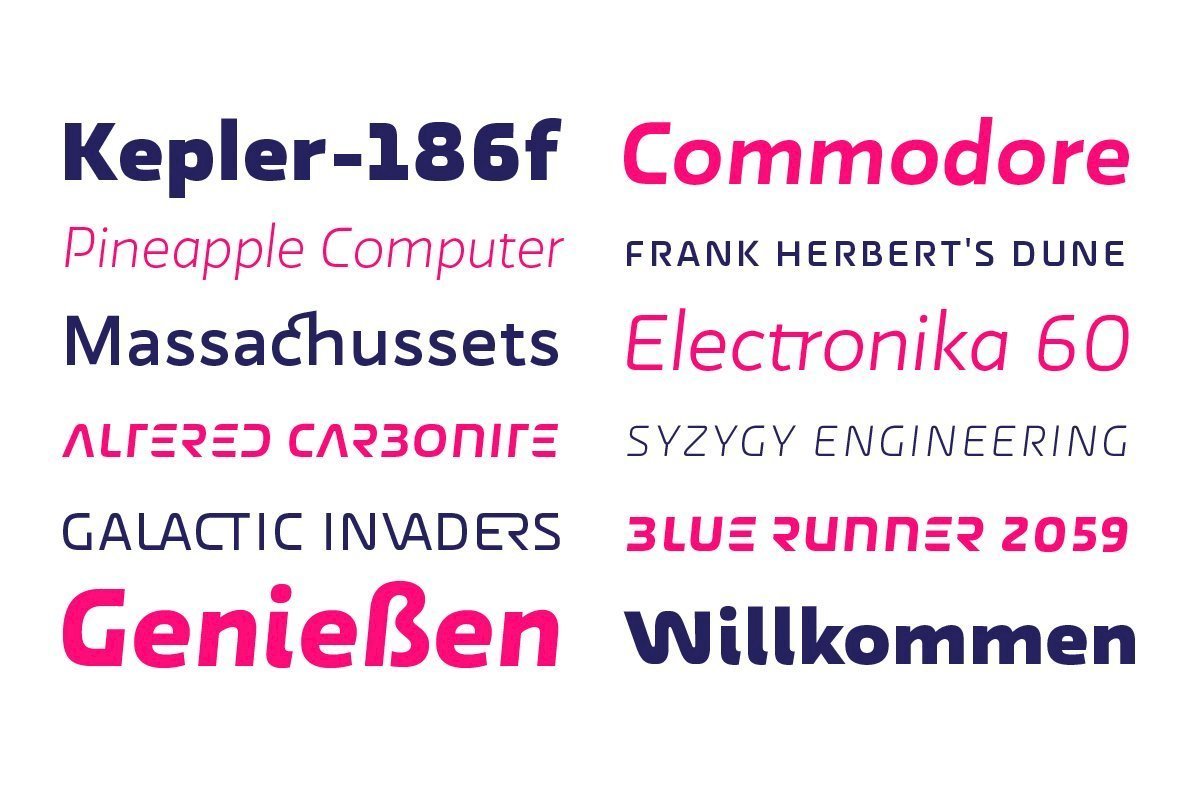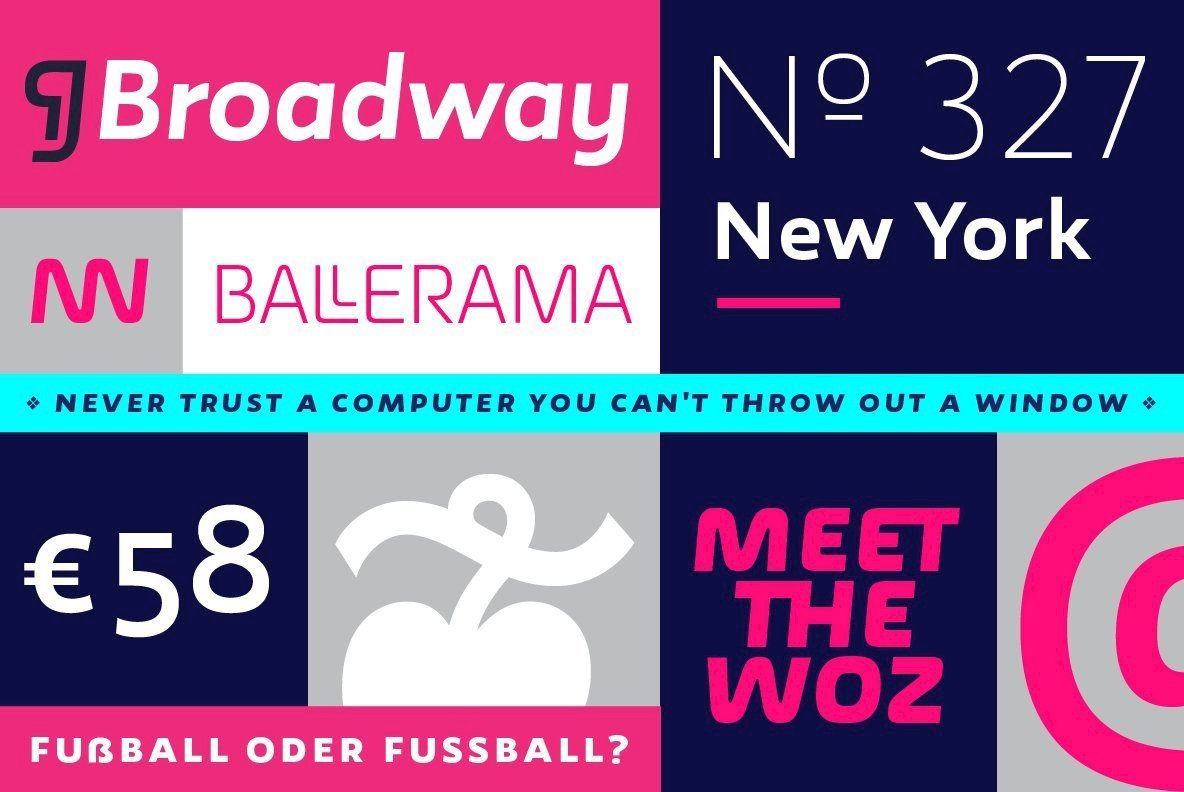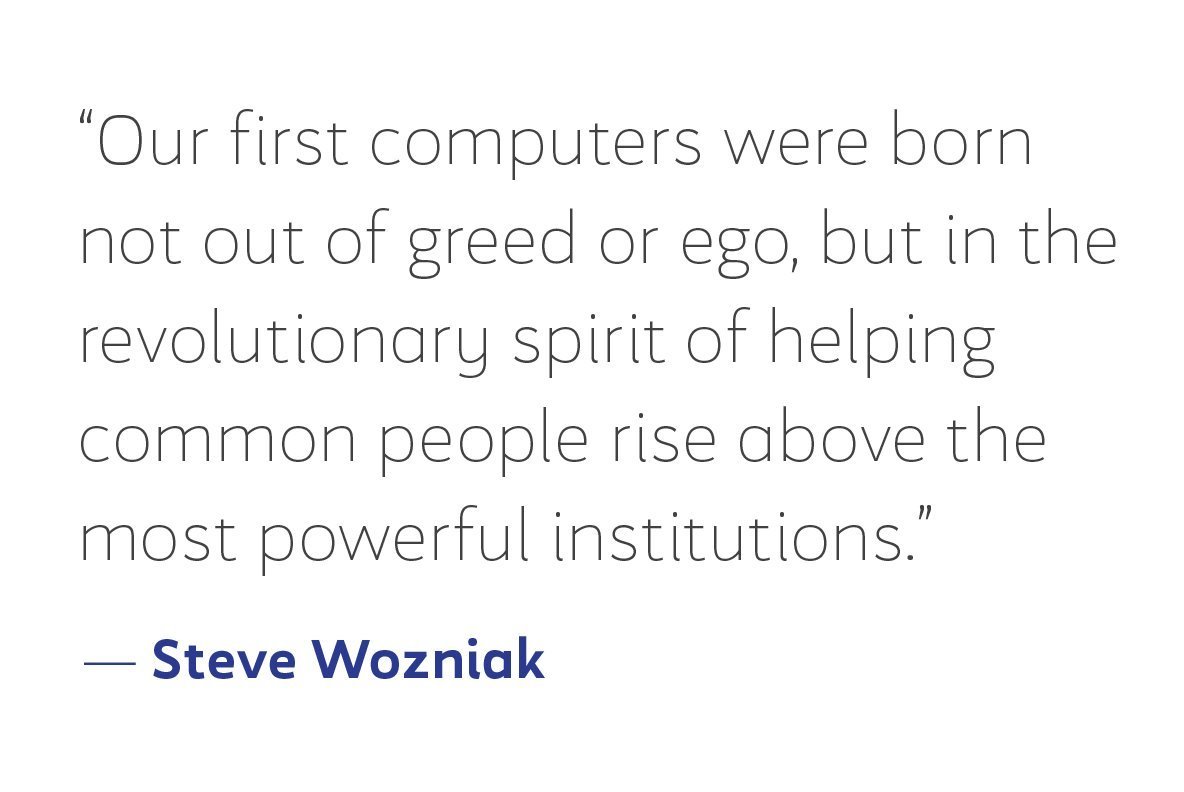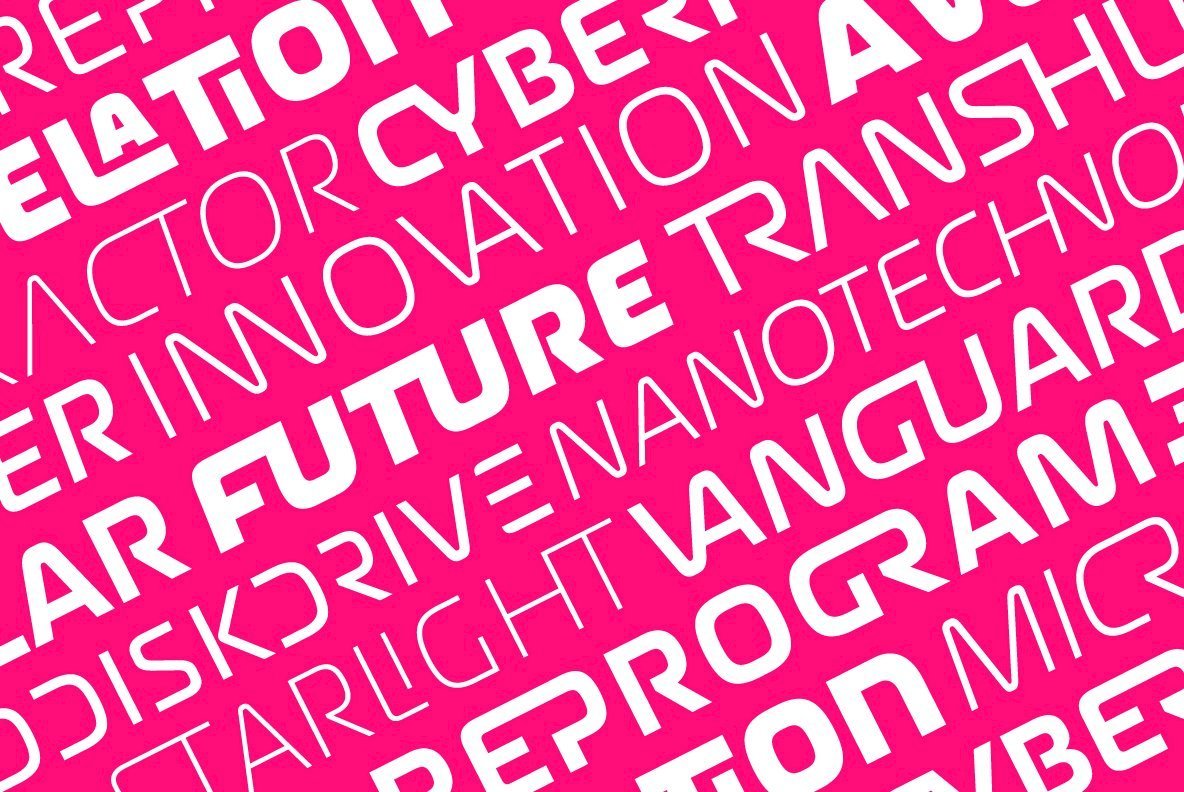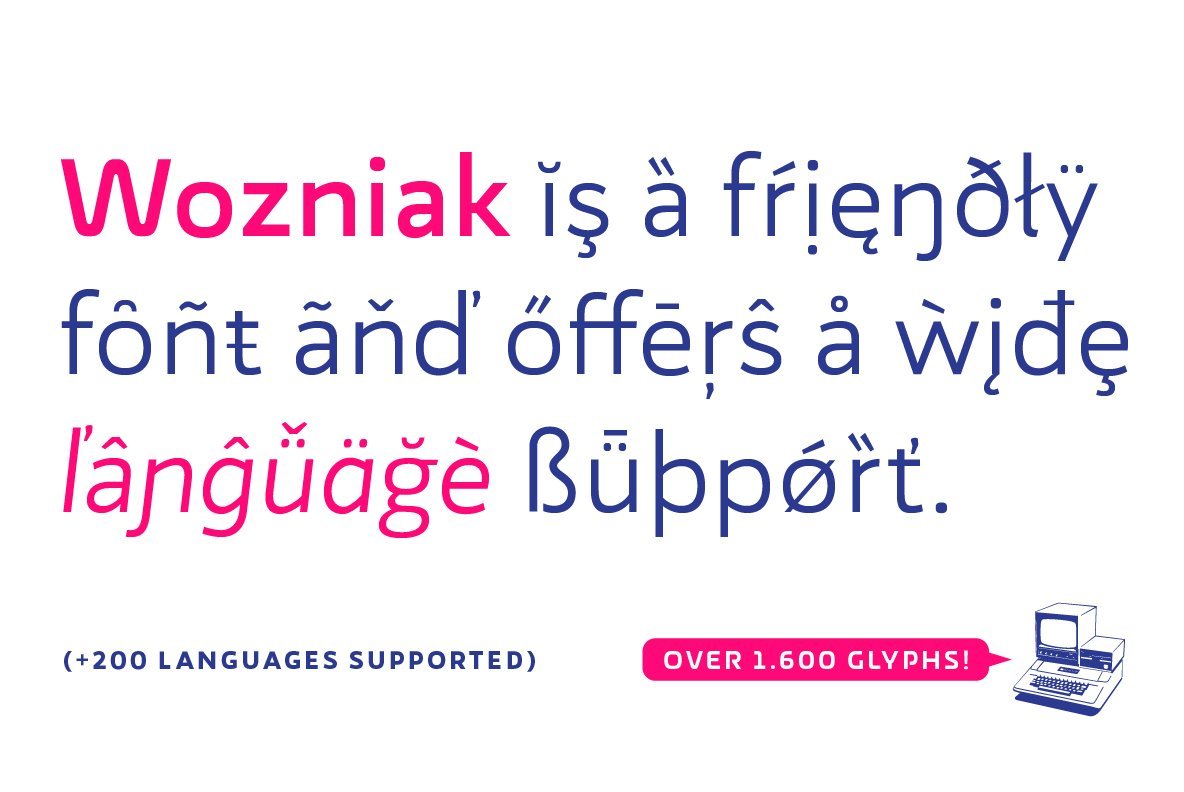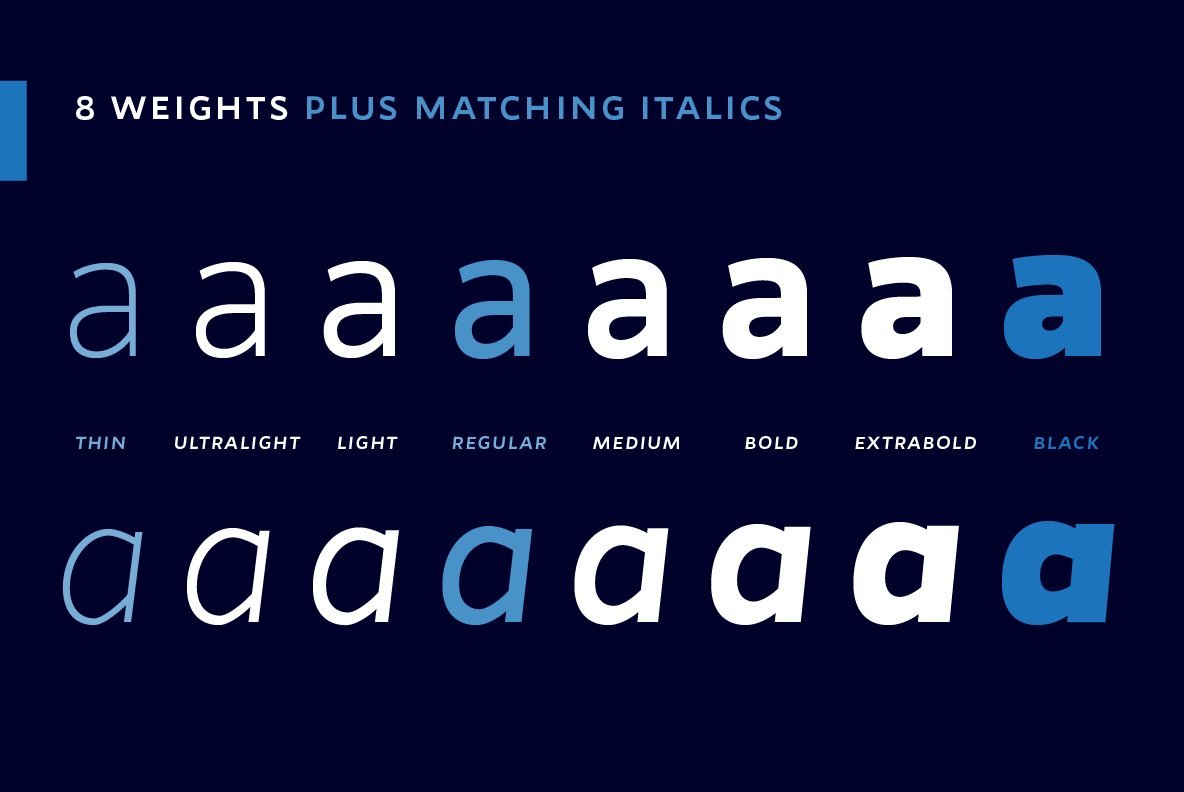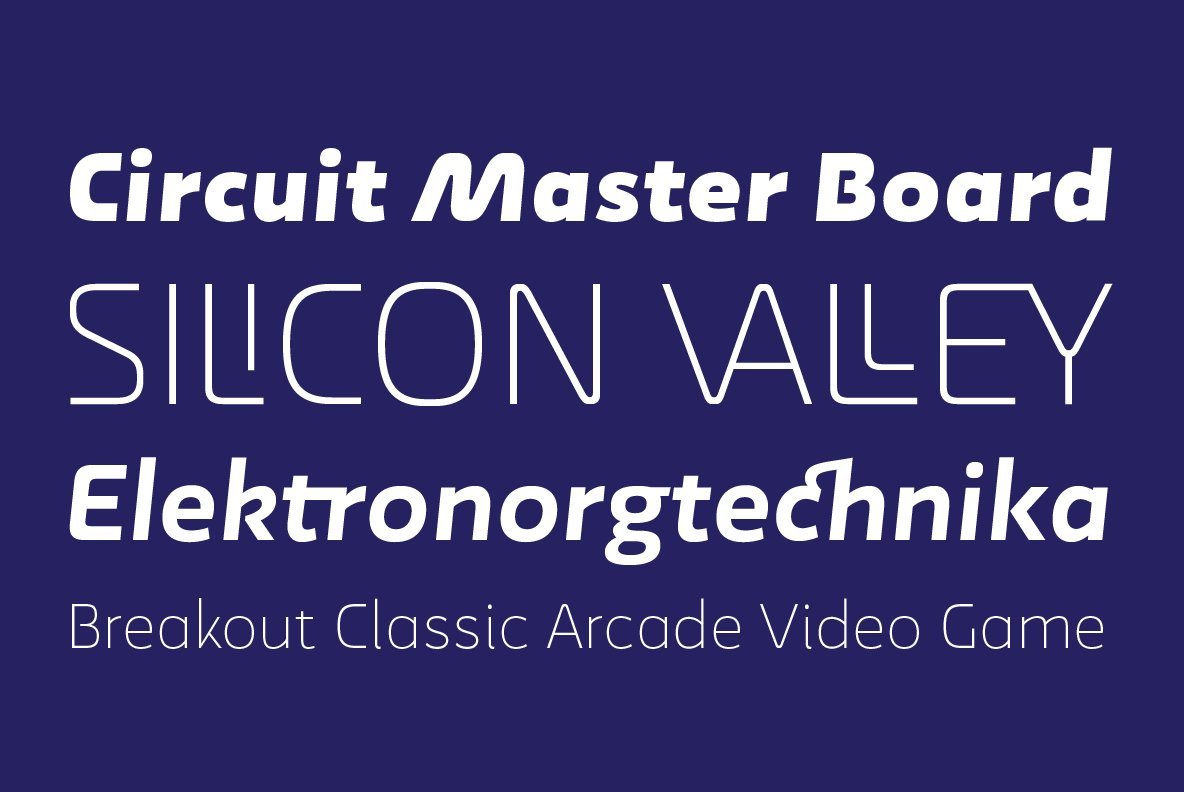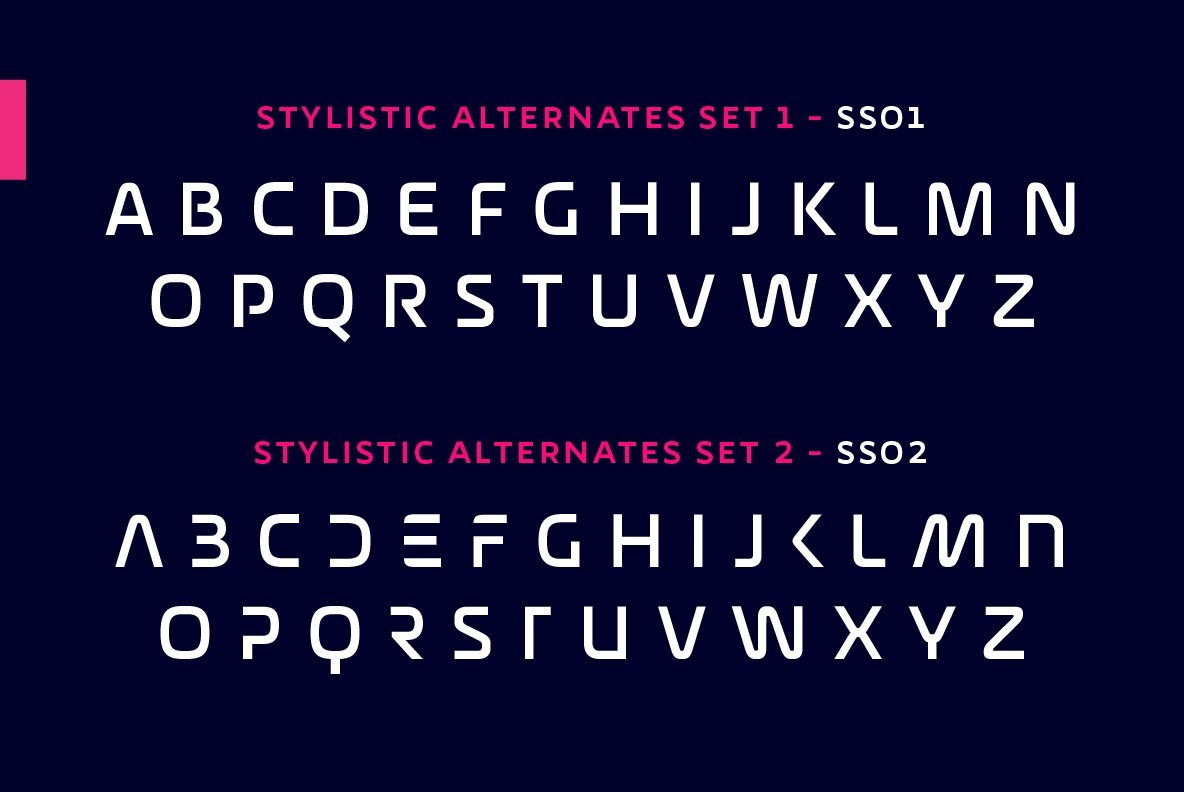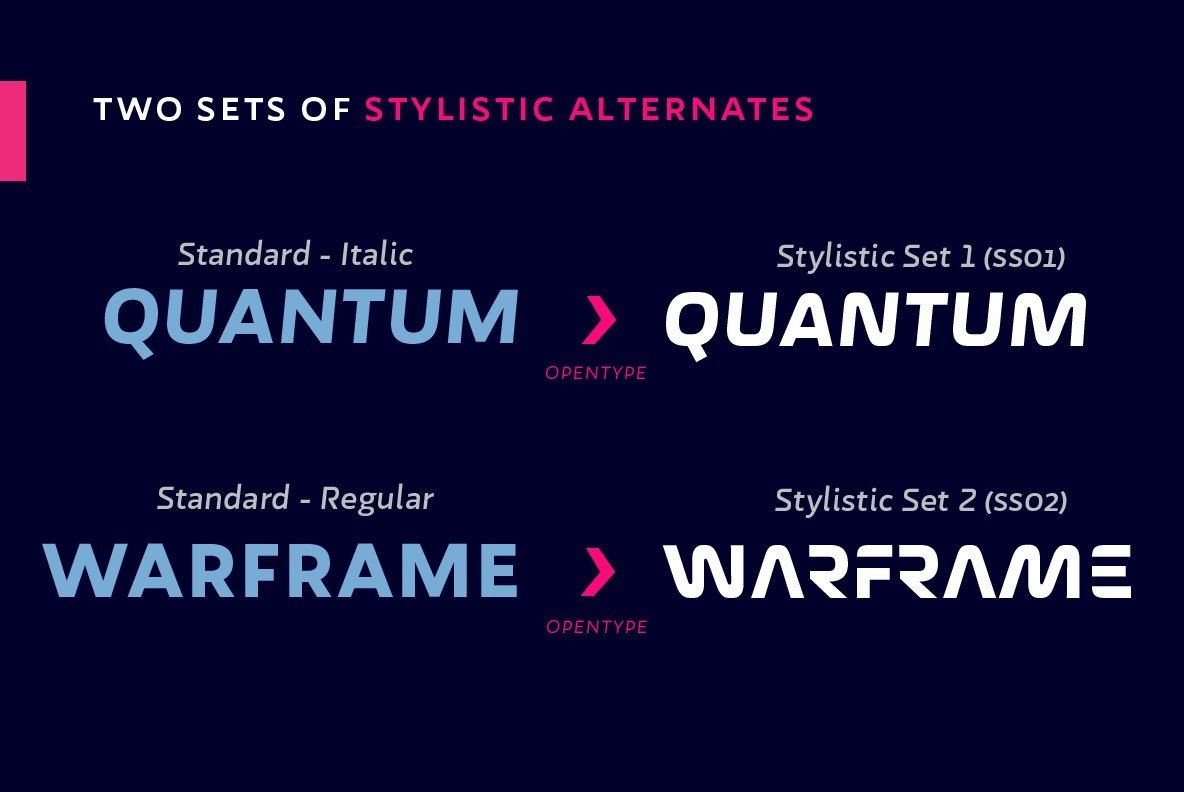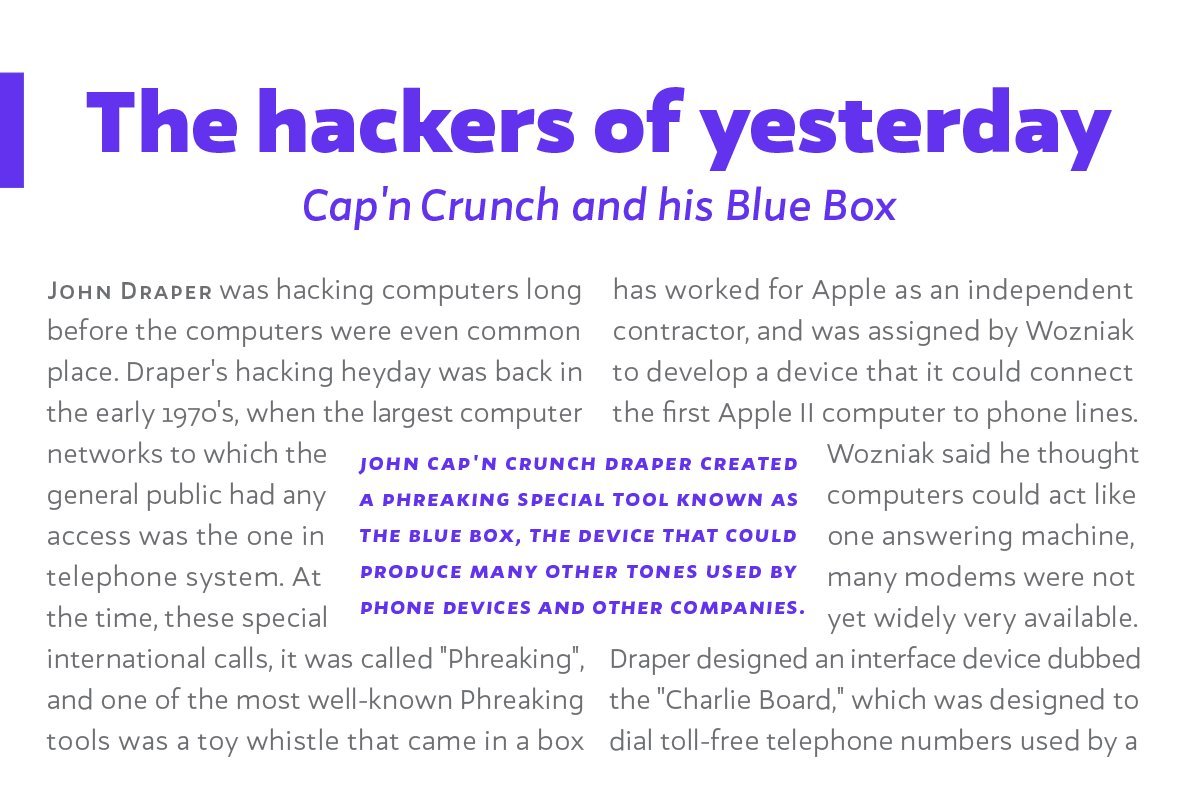
Wozniak Font
Wozniak is a workhorse sanserif typeface in 16 styles that includes a 16 styles display font on itself. On its default shapes brings a modern, clear and bright personality to the text and a wide range of possibilities by supporting many OpenType features, such as oldstyle, lining & tabular numbers, small caps, inferiors & superiors, discretionary ligatures, numerators & denominators, extended fractions, case sensitivity forms and more, all carefully crafted and balanced for excellent legibility and optimum performance both on screen and on paper.
But that’s not all, every style also includes two complete uppercase sets of display alternates and more than 180 stylistic ligatures inspired by the digital revolution and the early 80s aesthetics. All this blend into a flexible and multifunctional set of over 1600 glyphs, support for more than 200 latin script languages and the potentiality of use in long text settings, headlines or branding, travelling from modern to vintage with absolute ease and naturality.
Wozniak was named after Steve Wozniak as a tribute to the pioneers of the digital revolution.